Looking for the perfect Mother’s Day fonts? Whether you’re designing a heartfelt card, a custom mug, or a printable quote for Mom, these elegant and expressive fonts will help your message shine. Explore romantic scripts, floral displays, and soft handwritten styles – all curated for Mother’s Day designs.
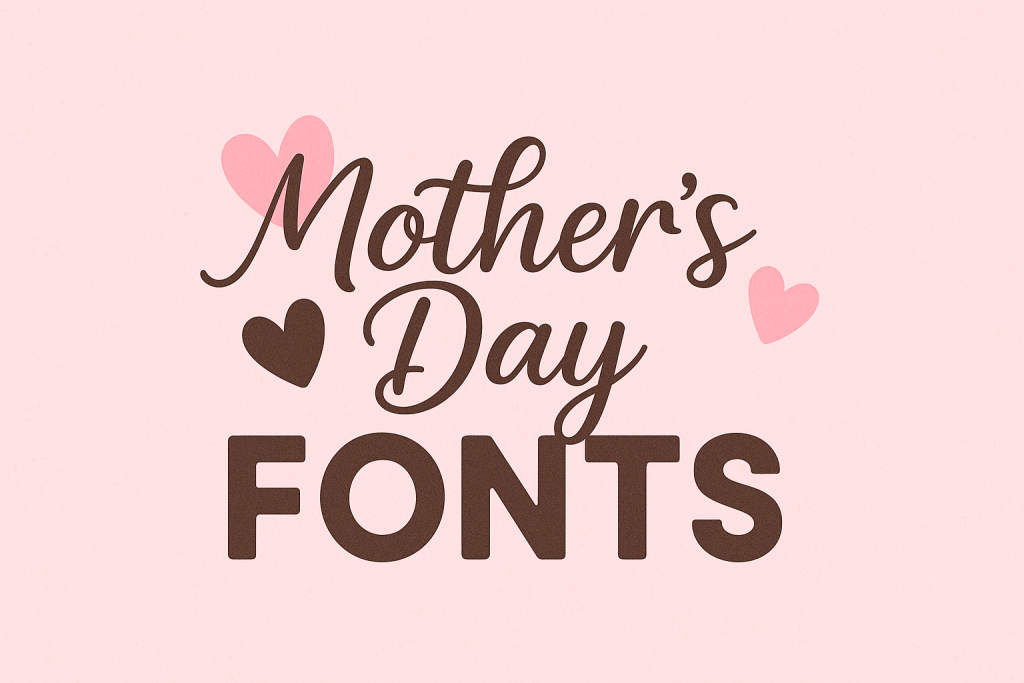
Best Mother’s Day Font Styles (What Works & Why)
Romantic Script / Calligraphy
Ideal for greeting cards, gift messages, quotes. Flourishes, swashes and ligatures bring warmth.
- Mother’s Day script → – flowy lines with soft curves
- Calligraphy font → – elegant pen-styled shapes
- Floral script → – decorative glyphs with floral touches
- Swash font → – expressive alternates and flourishes
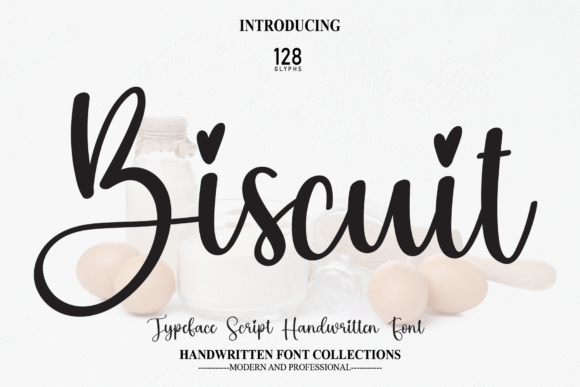
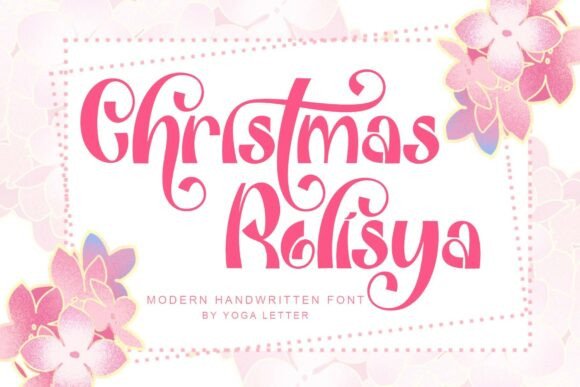
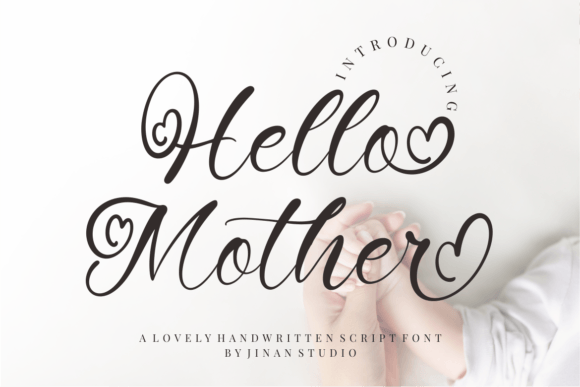
Elegant Serif & Transitional
Classic and readable – balances ornate scripts and adds structure in layouts.
- Elegant serif → – refined and graceful
- Transitional serif → – modern readability with classical touches
- Modern serif → – clean lines with personality
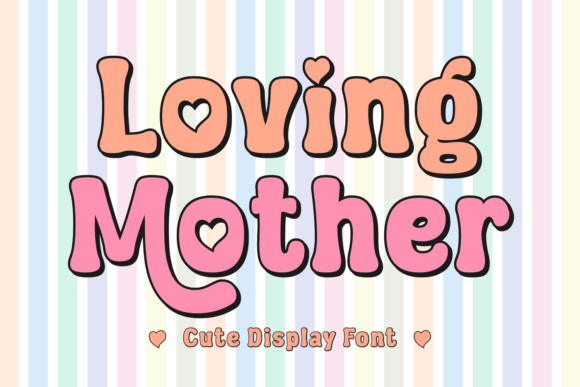
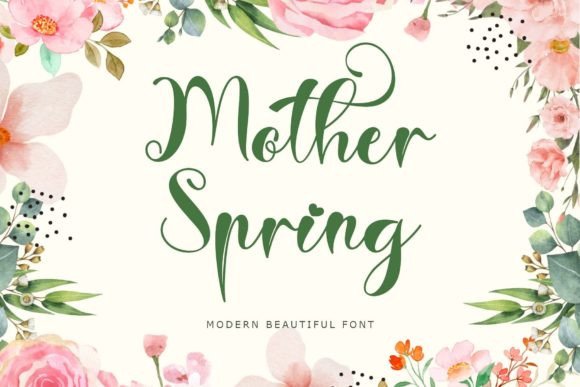
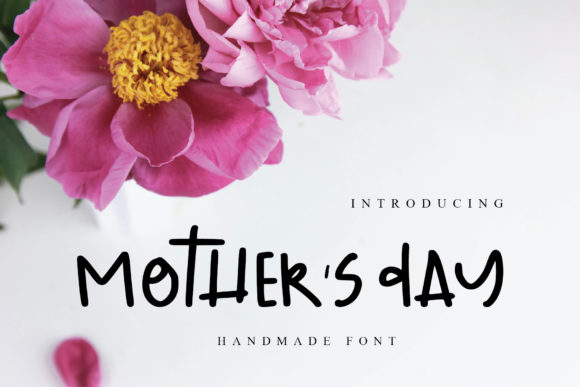
Handwritten / Brush
Warm, personal stroke styles that feel like a handwritten note or signature from the heart.
- Brush script → – natural brush texture
- Handwritten font → – casual and intimate
- Soft lettering → – gentle curves, light weights
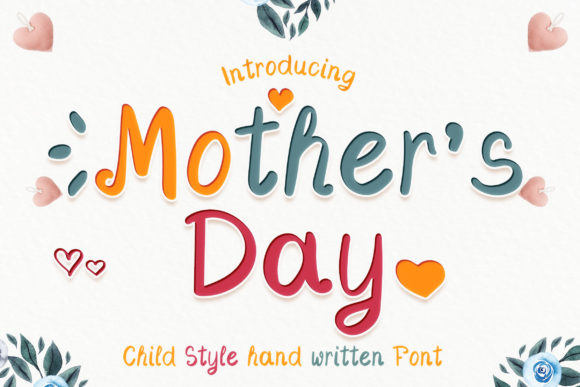
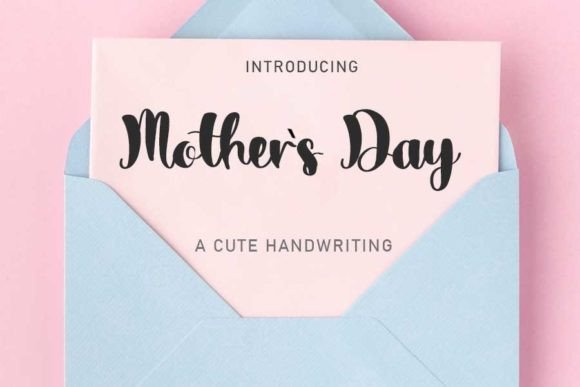
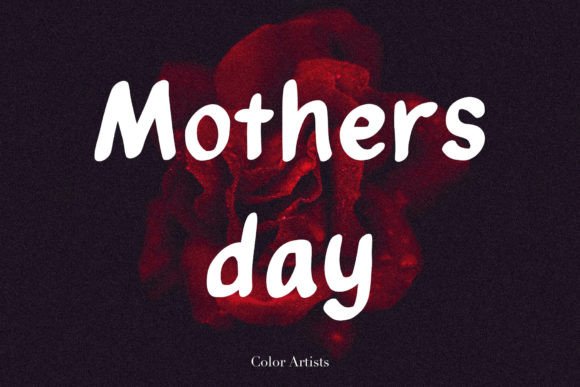
Decorative / Display
Fonts with patterns, floral ornaments or thematic shapes – perfect for big headings or titles.
- Decorative font → – artistic embellishments
- Floral display → – flower accents and leaf motifs
- Script display → – hybrid decorative styles
Font Pairing Recipes (Copy & Use)
- Script headline + Serif body – romantic header, clean supporting text
- Brush accent + Minimal sans – expressive accents, readable base
- Elegant serif + Tabular numerals – perfect for dates, pricing, quotes
- Decorative display + Simple sans – dramatic header, minimal text
Use one expressive “star” font and one quiet helper – maintain contrast in style, not chaos.
- OpenType features: Activate stylistic alternates, ligatures, and oldstyle/numeral options when supported.
Custom Lettering for Mother’s Day
Want a bespoke name lockup or custom script phrase like “Mom” or “Best Mother Ever”?
- Define style: script, serif, minimal
- Request dark/light versions, alternate glyphs, and kerning for your words
Romantic scripts, floral display fonts, and elegant serifs – they express warmth and personality.
Use script for titles, overlays, and names. Use serif or sans for supporting text to maintain readability.
Choose fonts with tabular figures so digits share uniform width – helpful for dates, years, pricing.